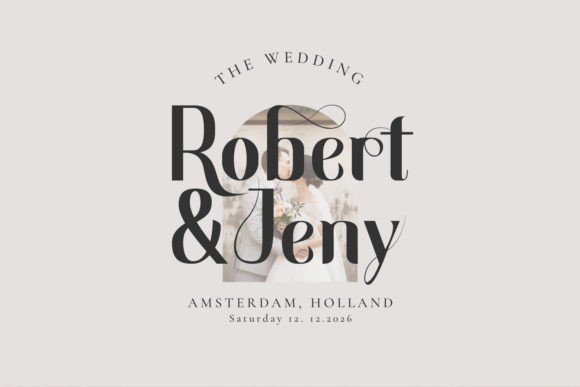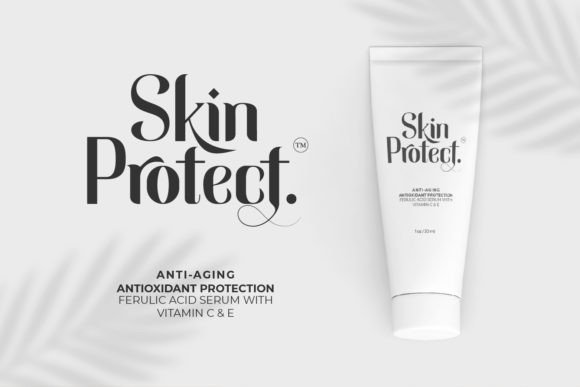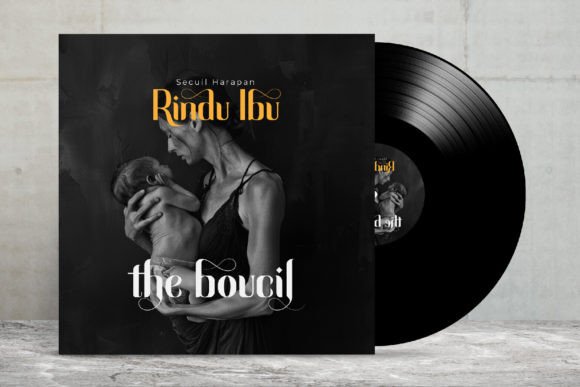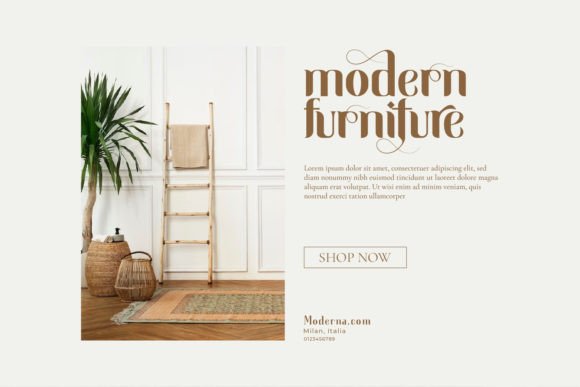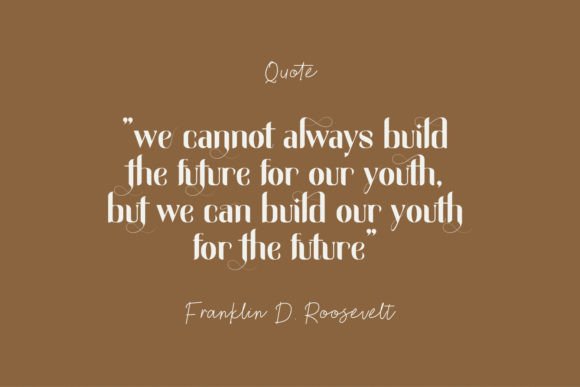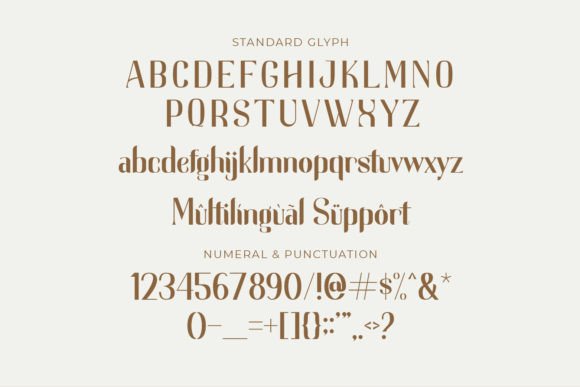
Introduction to Rastory Font
Have you ever been working on a creative project, pouring your heart and soul into it, only to feel like something is missing? That’s when the perfect font can make all the difference. Imagine a font that effortlessly elevates your design, adding a touch of sophistication and professionalism to your work. That’s where Rastory Font comes in – a stunning, modern typeface that’s about to become your go-to design resource.
As a designer, you know how crucial it is to have access to high-quality fonts that can take your projects to the next level. With Rastory Font, you can create stunning visuals, from logos and branding to marketing materials and social media graphics, all with a clean and contemporary aesthetic.
Key Features of Rastory Font
- High-quality design resource suitable for creative projects, including graphics, logos, and branding materials.
- Features a transparent background, allowing for seamless integration into complex designs and backgrounds.
- Comes in a range of sizes, from 8pt to 72pt, making it suitable for various applications, from small text to large headings.
- Designed with a unique, creative style that adds a touch of personality to any project, making it perfect for artistic and innovative designs.
- Available in high resolution (up to 300 DPI), ensuring crisp and clear display on various devices and mediums.
Honest Review: Rastory Font
One of the things that works well with the Rastory Font is its versatility. It’s suitable for a wide range of projects, from logos to typography-heavy designs. I also appreciate the transparent background option, which allows for seamless integration with other design elements.
The font itself is of high quality and has a unique, modern aesthetic that sets it apart from more generic fonts. I particularly like the bold and playful styles, which add a lot of character to any design.
- Transparent background option for seamless integration
- High quality and unique design aesthetic
- Playful and bold styles
Tips for Getting the Most Out of Rastory Font
Use the Rastory Font on a high-quality design project to give it a unique and creative touch. Experiment with different font sizes, colors, and styles to create a visually appealing design. You can also use the font on a transparent background to add an extra layer of creativity to your design.
The Rastory Font is ideal for creative projects such as infographics, brochures, and posters. It’s also great for designing social media graphics, presentations, and documents. With its unique design and high-quality resolution, the Rastory Font is a valuable resource for any designer or creative professional.